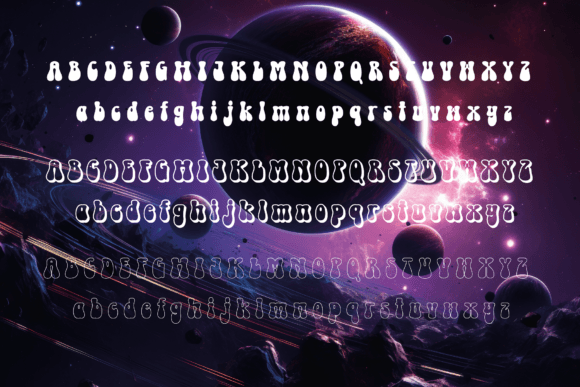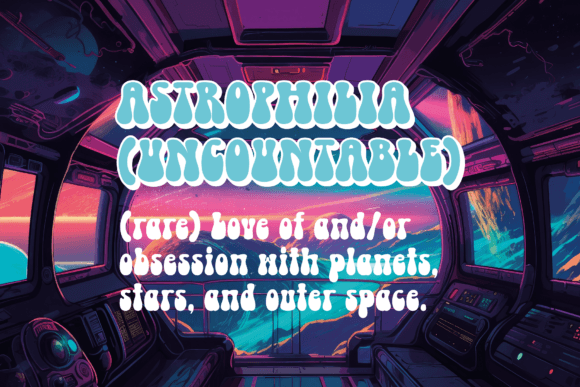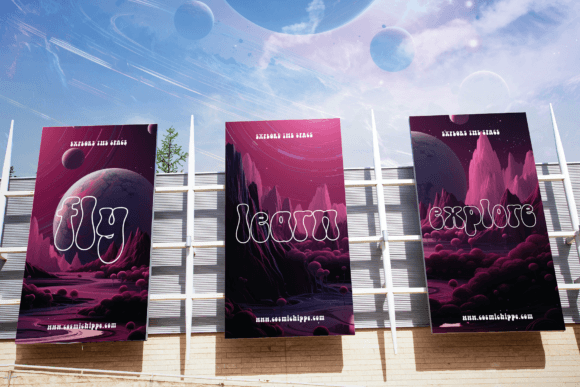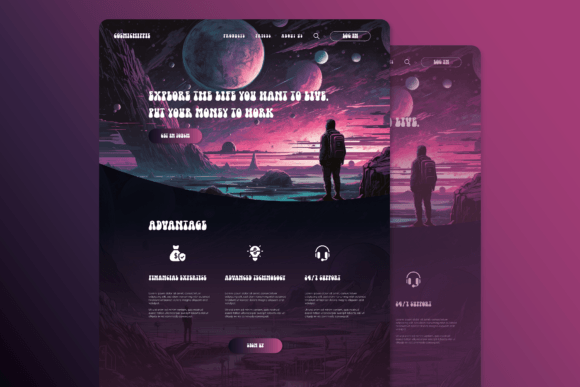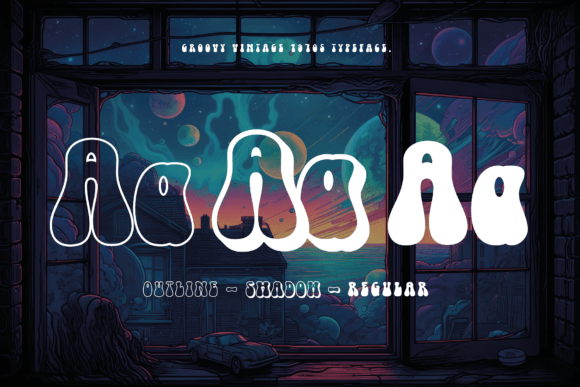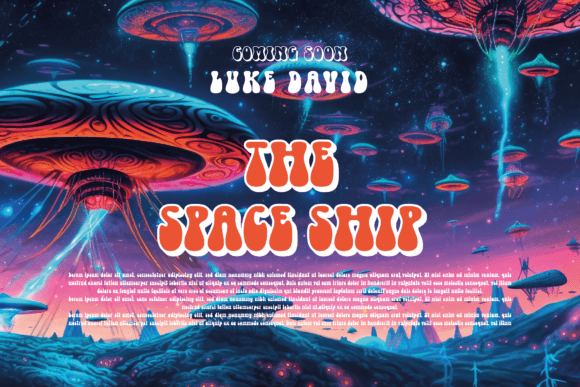
Introducing Cosmic Hippie Font: A Groovy Gateway to the 1970s
Take a step back in time to the vibrant era of the 1970s, an age of revolution, self-expression, and unparalleled creativity. The Cosmic Hippie font is here to transport you back to this extraordinary decade, encapsulating its essence in a typeface that is as playful as it is profound. Inspired by the counterculture movement that defined the 1970s, this font is a nostalgic journey through time, perfect for designers and crafters looking to infuse their projects with a dose of retro charm.
The Essence of the 1970s Counterculture
The 1970s was a decade of significant social and cultural change. It was an era marked by the rise of the counterculture movement, which sought to challenge traditional norms and values. This movement was characterized by its emphasis on peace, love, and individuality, ideals that are beautifully encapsulated in the Cosmic Hippie font. The font’s swirling curves and playful letterforms evoke the free-spiritedness and creativity of the era, making it an ideal choice for projects that seek to capture the essence of the 1970s.
Design Characteristics of Cosmic Hippie Font
Cosmic Hippie font is a bold and psychedelic typeface that embodies the iconic aesthetics of the 1970s. Its design is characterized by:
- Swirling Curves: The font features swirling curves that give it a dynamic and playful feel, reminiscent of the psychedelic art that was popular during the 1970s.
- Playful Letterforms: Each letterform is designed to be unique and expressive, capturing the spirit of creativity and self-expression that defined the era.
- Psychedelic Style: The font’s bold and psychedelic style is perfect for adding a touch of retro charm to any design project.
Uses of Cosmic Hippie Font
Cosmic Hippie font is versatile and can be used in a variety of design projects, including:
- Posters: Add a touch of nostalgia to your posters with a font that screams retro charm.
- Album Covers: Give your music projects a vintage vibe with a font that captures the essence of the 1970s music scene.
- Digital and Print Media: Use Cosmic Hippie font in your digital and print media projects to add a dose of creativity and self-expression.
- Crafting and DIY Projects: Perfect for crafters and DIY enthusiasts looking to add a retro touch to their handmade projects.
Why Choose Cosmic Hippie Font?
There are several reasons why Cosmic Hippie font stands out as a top choice for designers and crafters:
- Nostalgic Appeal: The font’s design is deeply rooted in the 1970s counterculture movement, making it a great choice for projects that require a nostalgic touch.
- Versatility: Cosmic Hippie font can be used in a wide range of projects, from posters and album covers to digital and print media.
- Unique Design: The font’s unique design ensures that your projects stand out from the crowd, adding a touch of individuality and creativity.
Cosmic Hippie font is more than just a typeface; it’s a gateway to a groovy world of colorful expression and timeless coolness. Its bold and psychedelic style, inspired by the counterculture movement of the 1970s, makes it an ideal choice for designers and crafters looking to add a touch of retro charm to their projects. Whether you’re working on posters, album covers, or any project that calls for a dose of nostalgia, Cosmic Hippie font is the perfect choice. Let the spirit of the 70s shine through with this font that embodies the era’s iconic aesthetics.
Embark on a journey through time with Cosmic Hippie font and let the essence of the 1970s inspire your creativity. Whether you’re a designer, crafter, or simply a fan of the era, this font is sure to bring a touch of retro charm to your projects.